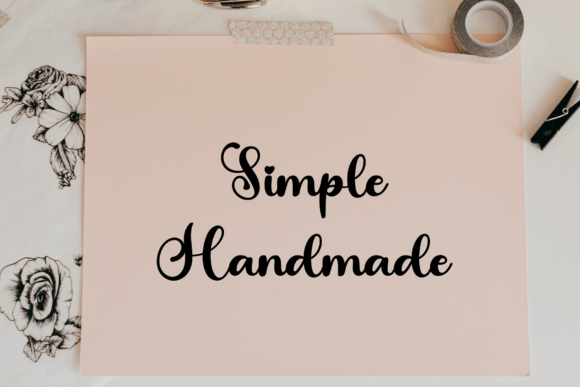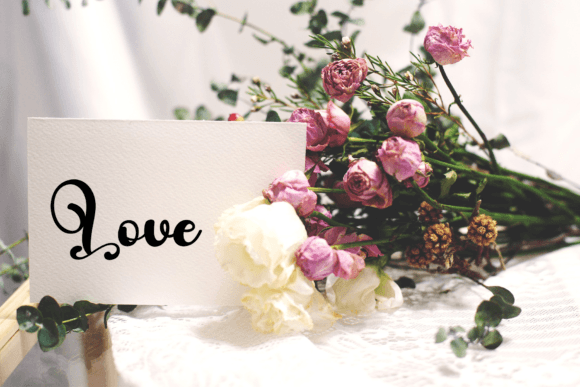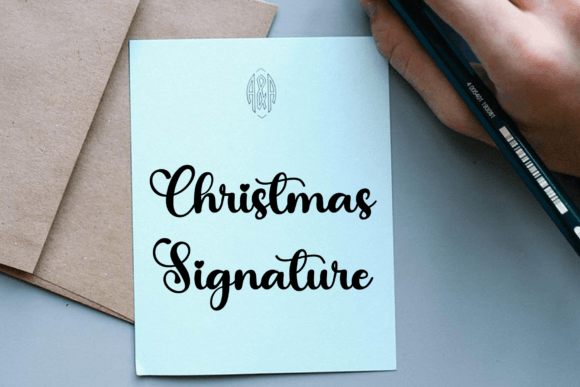
Introducing “Christmas,” a delicate handwritten font crafted with care for a cool and unique design. This font is designed to bring a touch of elegance to your projects and can be used for various applications such as writing letters, creating invitations, labeling food products, designing titles, and more.
The delicate and handwritten style of “Christmas” adds a personal and charming feel to your text. Its versatility makes it suitable for a range of creative endeavors, allowing you to infuse a cool and unique aesthetic into your designs.
Imagine “Christmas” enhancing the warmth of your holiday letters, where its delicate script creates a festive and inviting atmosphere. Picture it on invitations, adding a unique and stylish touch to your event announcements. Envision it gracing food product labels, giving your packaging a cool and handwritten appeal.
“Christmas” is not just a font; it’s a design element that brings a delicate and unique quality to your projects. Its carefully crafted style makes it suitable for a variety of contexts, making it a valuable addition to your font collection.
Add “Christmas” to your creative toolbox and experience how it effortlessly elevates your designs. Let it be the delicate handwritten font that adds a cool and unique touch to your letters, invitations, titles, and more!